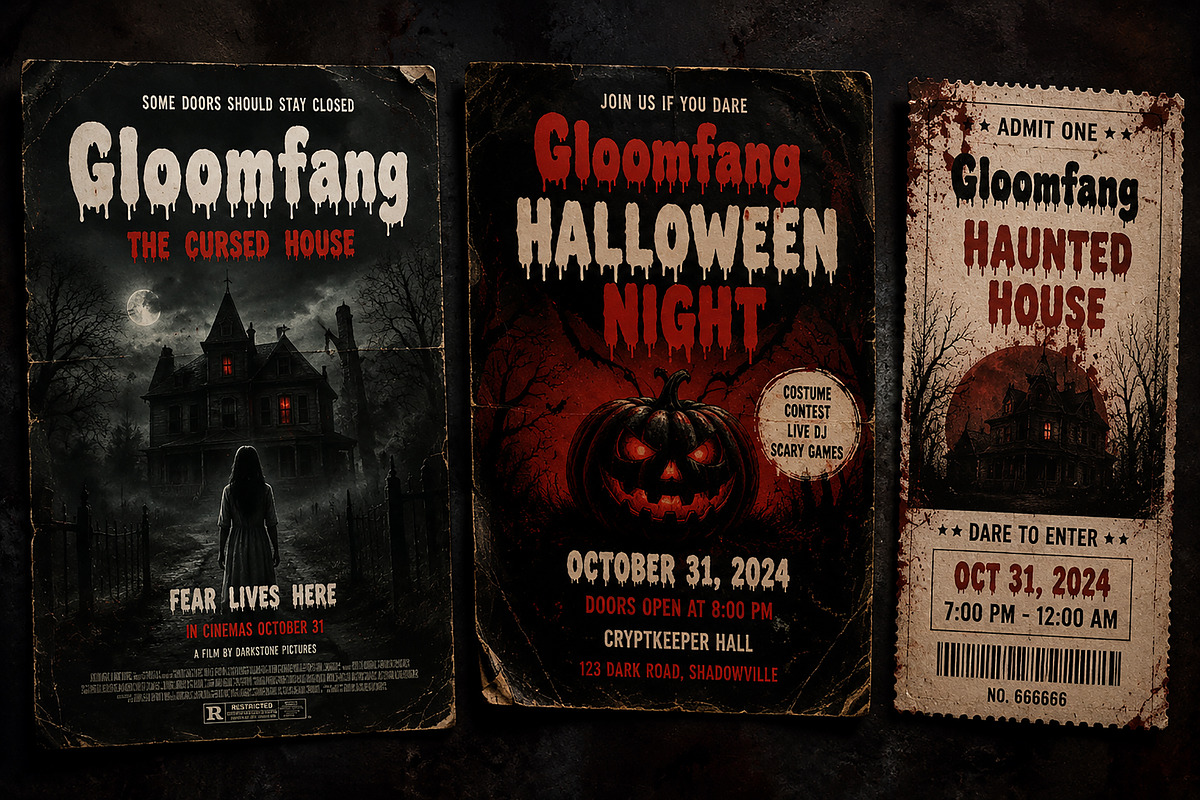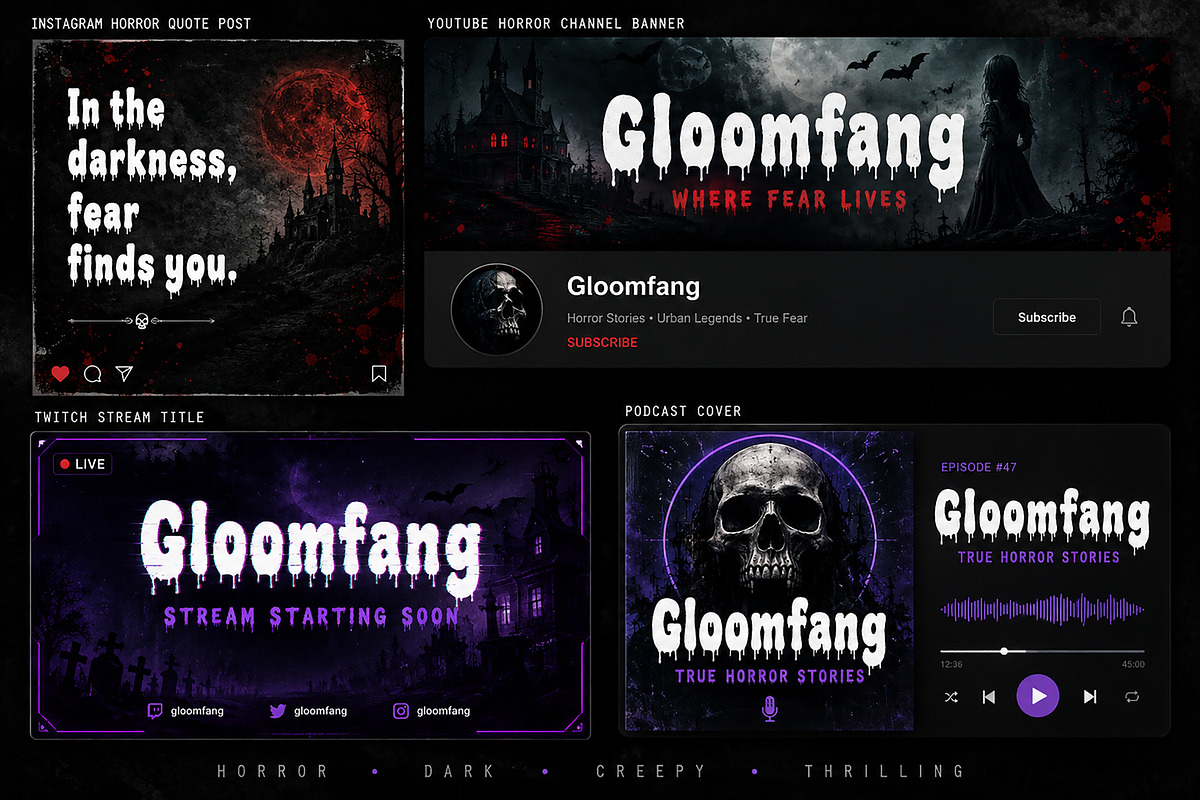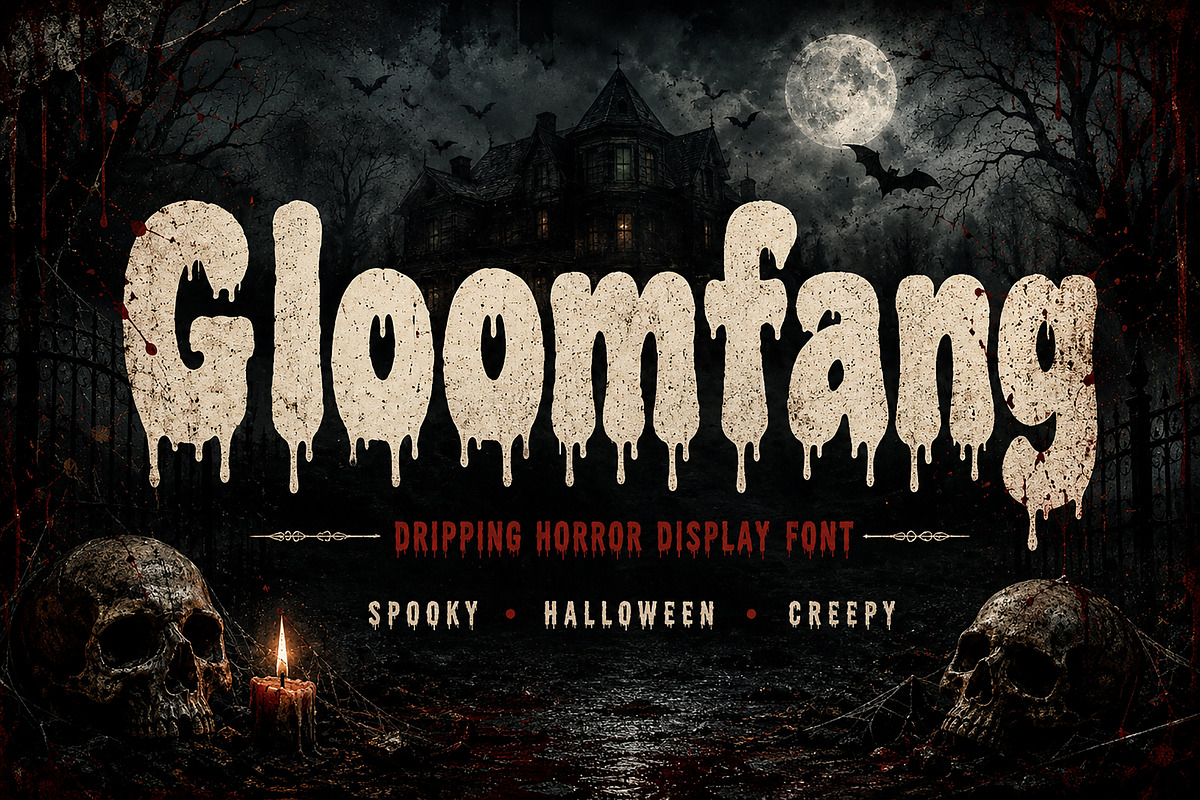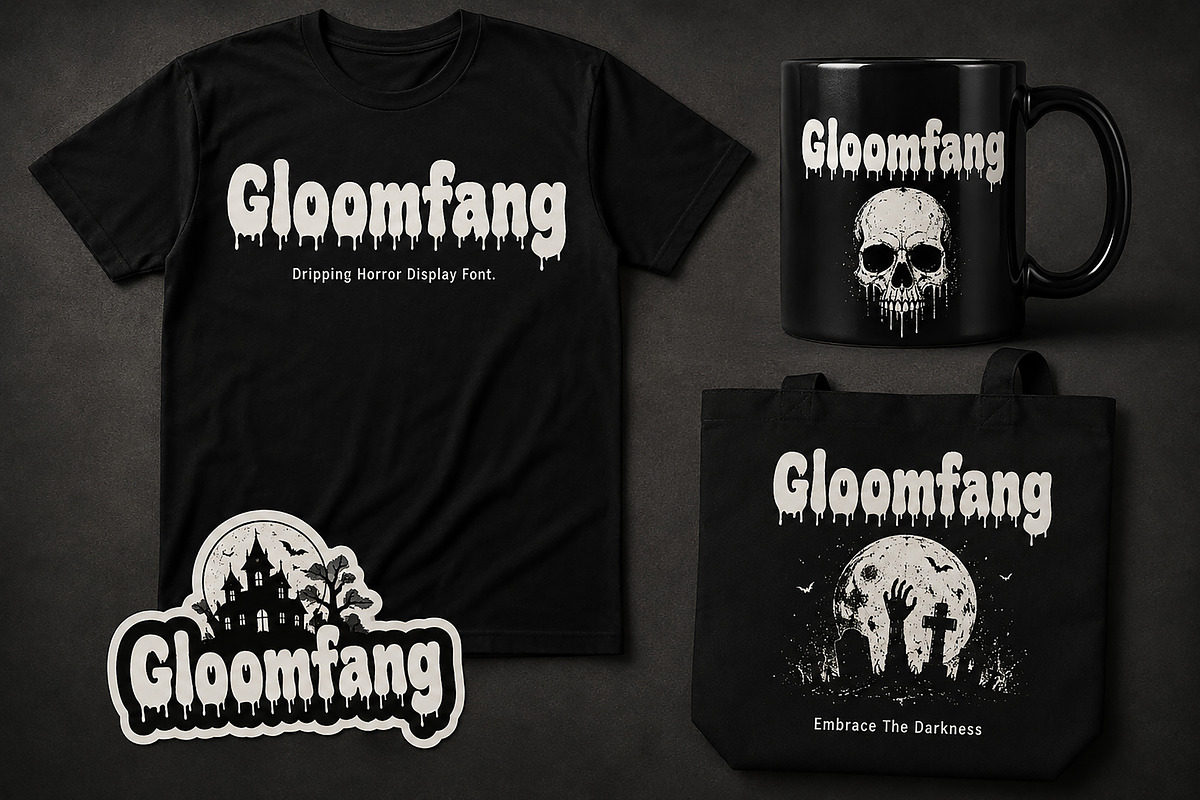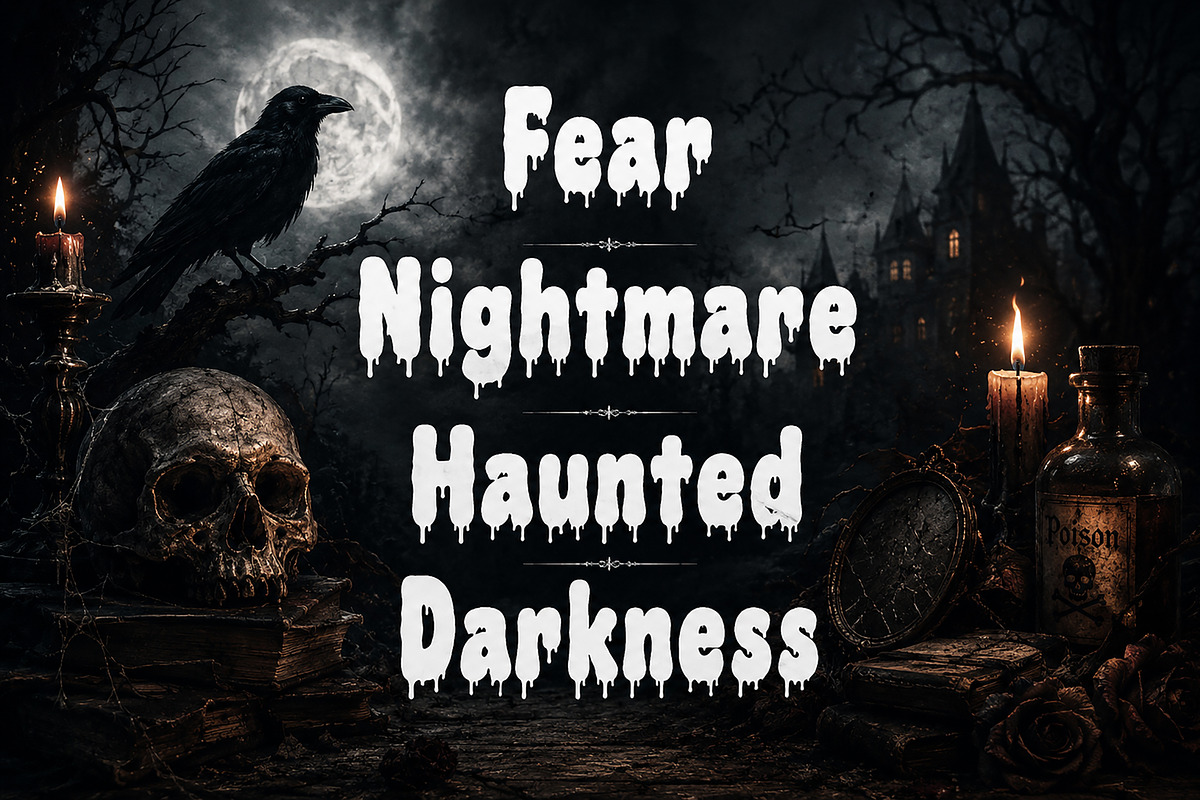
Gloomfang
Gloomfang is a chilling horror display font crafted to bring fear, darkness, and cinematic terror into your designs. Featuring bold letterforms with dripping edges and an eerie hand-drawn aesthetic, this typeface captures the essence of classic horror posters, Halloween branding, haunted house flyers, and spooky merchandise.
Designed for creators who want to make a bold statement, Gloomfang blends creepy vibes with high-impact readability, making it perfect for eye-catching titles and dramatic display text.
Whether you're creating horror movie posters, Halloween invitations, YouTube thumbnails, game titles, gothic branding, or dark-themed merchandise, Gloomfang delivers a haunting visual identity that instantly grabs attention.
Horror movie posters
Halloween event flyers
Haunted house tickets
Spooky merchandise
YouTube horror channels
Twitch stream branding
Podcast covers
Book covers
Game titles
Dark-themed social media graphics
Bring your nightmares to life with Gloomfang — the ultimate dripping horror font for terrifyingly good designs.